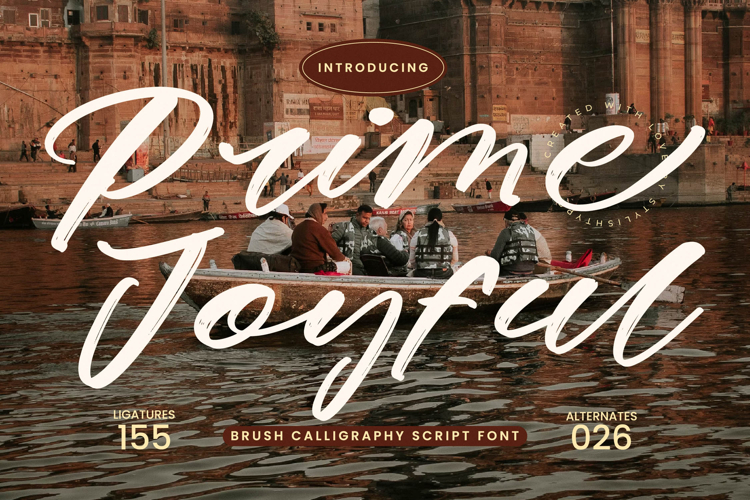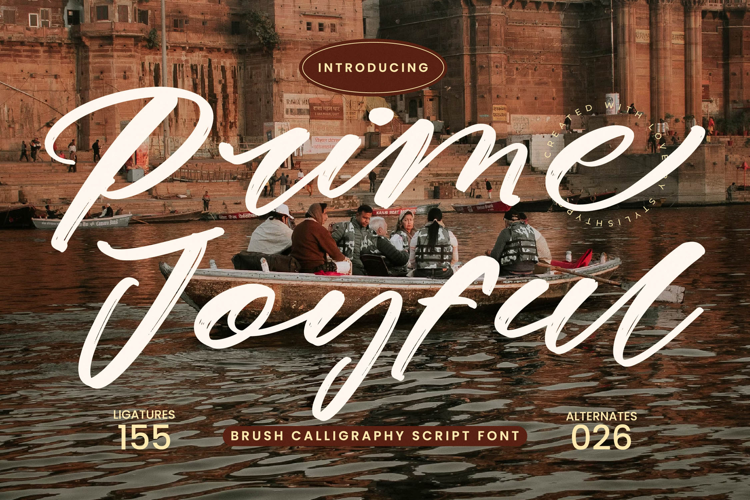
Prime Joyful - Brush Calligraphy Script
Ignite your designs with the captivating authenticity of Font Prime Joyful - Brush Calligraphy Script Script, a masterfully crafted typeface brimming with artistic charm. Its vibrant brush strokes and fluid, high-contrast design evoke a genuine handcrafted feel, injecting immediate warmth and personality into any creative project. This expressive script commands attention, conveying emotion with every elegant curve.
Unlock immense creative potential with Font Prime Joyful - Brush Calligraphy Script Script's rich feature set. Boasting an impressive 155 ligatures and 26 alternates, this font offers unparalleled customization, enabling truly unique and sophisticated text compositions. These extensive stylistic sets ensure a seamless, natural flow, making designs feel bespoke while enhancing both readability and visual appeal.